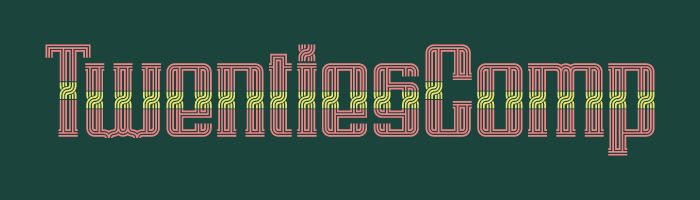
Lovely design, especially on the letters like "R" and "Z"
Hey, nice XX! The font look fine in two colours. Also, they are the colours of the flag of my country.
Oh, just accidentally picked these colors from Illustrator pallette :) Yeap, the sample shows the XX that started it, but of course some glyphs have only one or more or none (punctuation) to make this font more or less legible. And I have extended the character set, now the Basic Latin is completed.
This is some intense inlining! ?
This is now a color font.